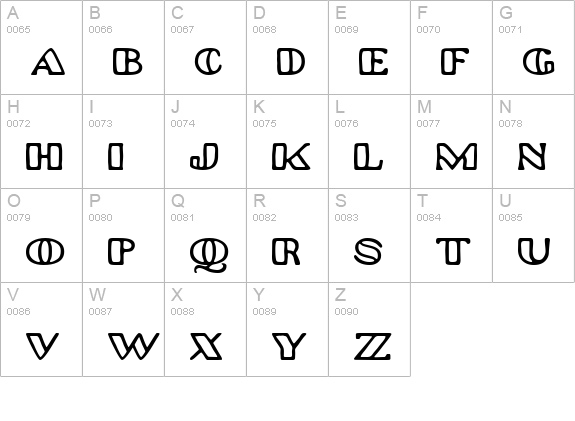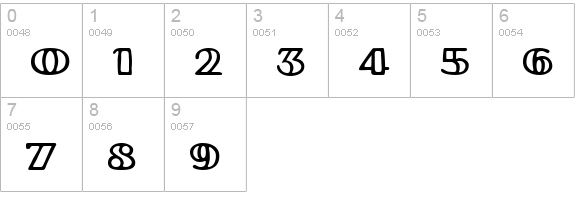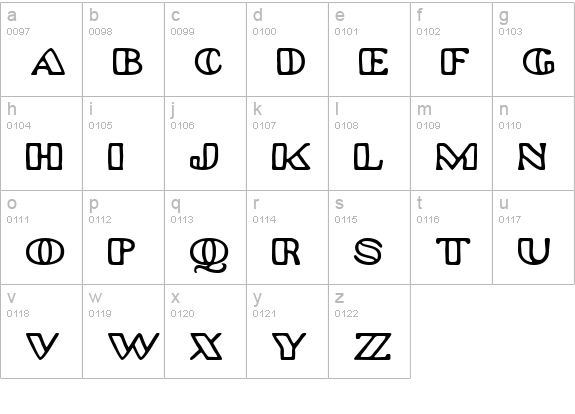
Platinum Hub Caps font is a sleek and modern typeface that exudes sophistication and elegance. With its bold, rounded edges and stylish design, this font is perfect for adding a touch of luxury to any project. The Platinum Hub Caps font is versatile and can be used for a variety of design purposes, from logos to packaging to branding. What's even better is that this stunning font is available for free download at FontsMarket.com. So whether you're a professional designer looking to elevate your work or a hobbyist looking to add a touch of flair to your projects, the Platinum Hub Caps font is the perfect choice. Download it today and unleash your creativity with this exquisite typeface.